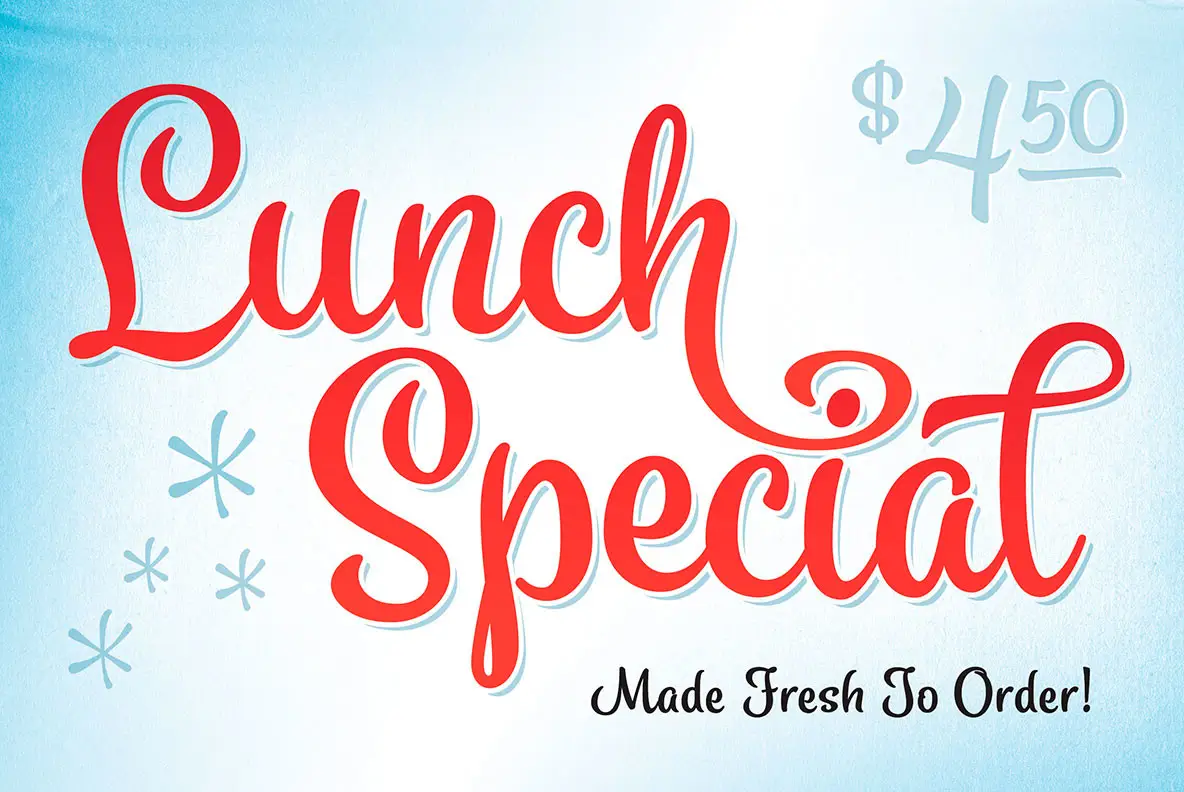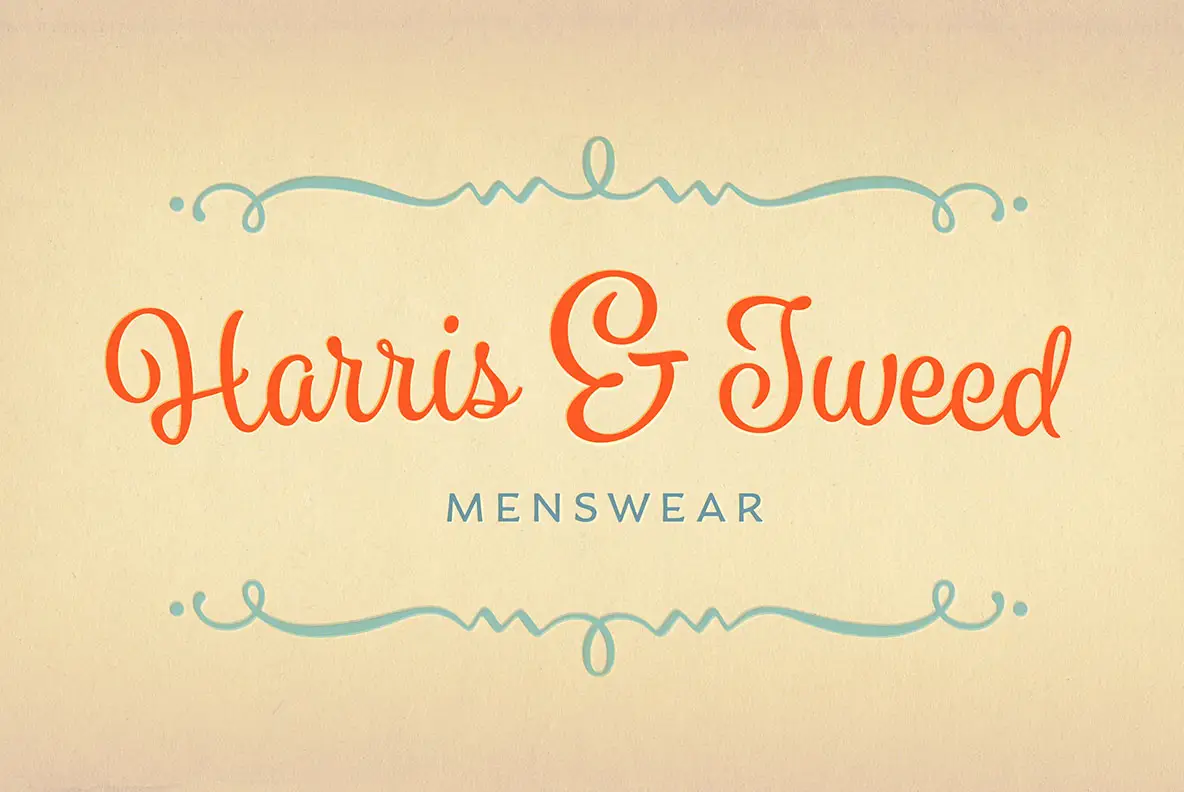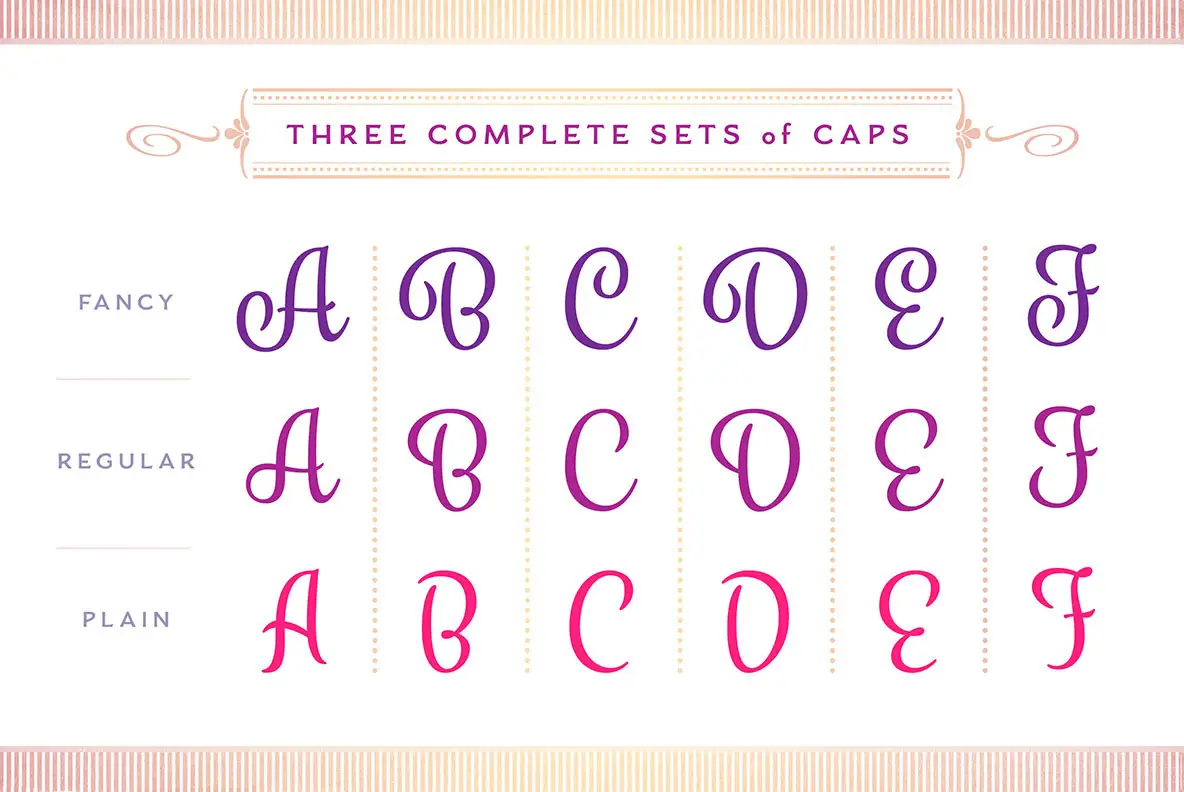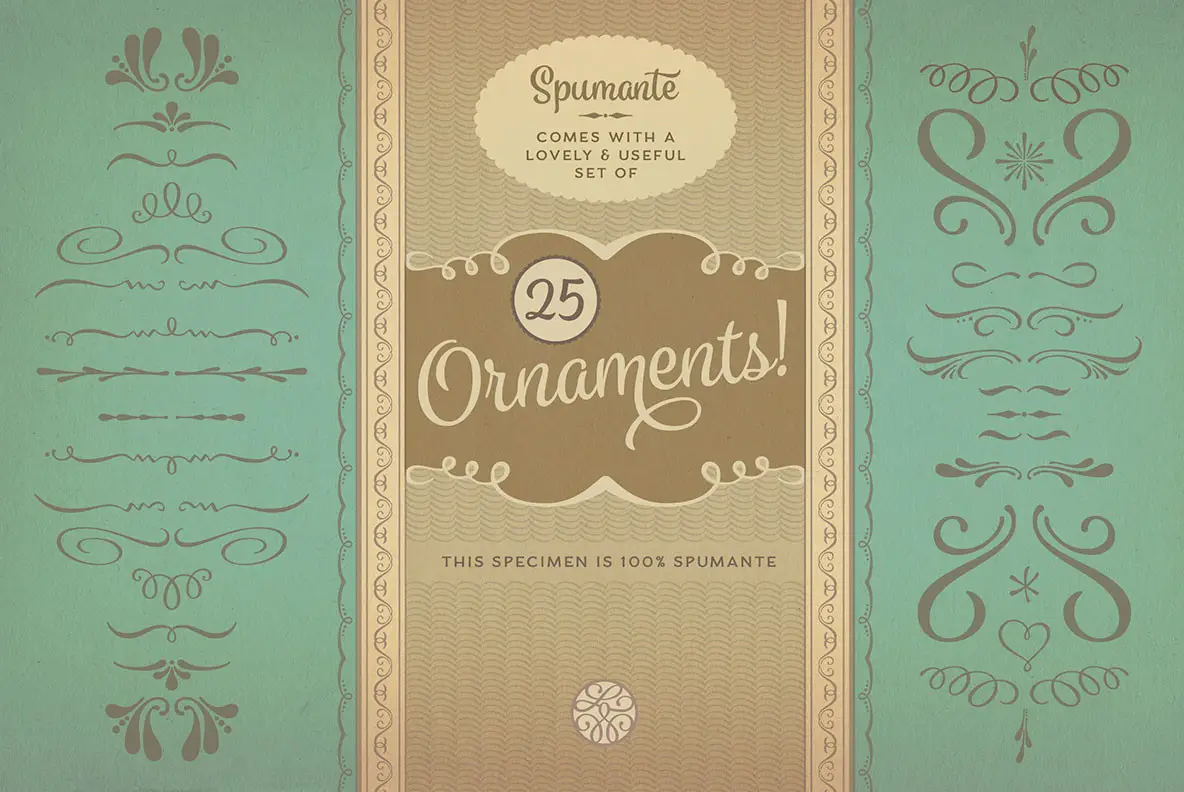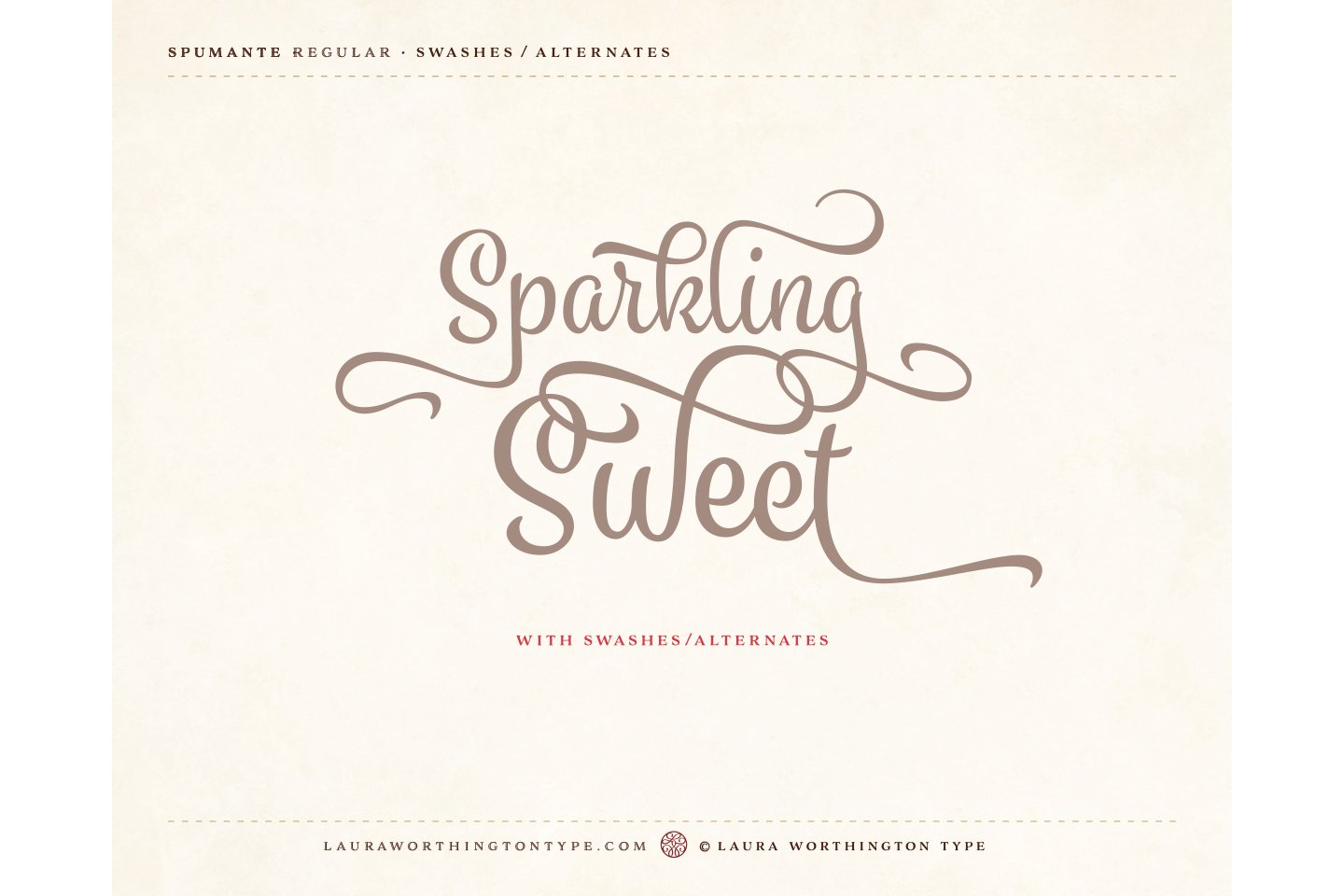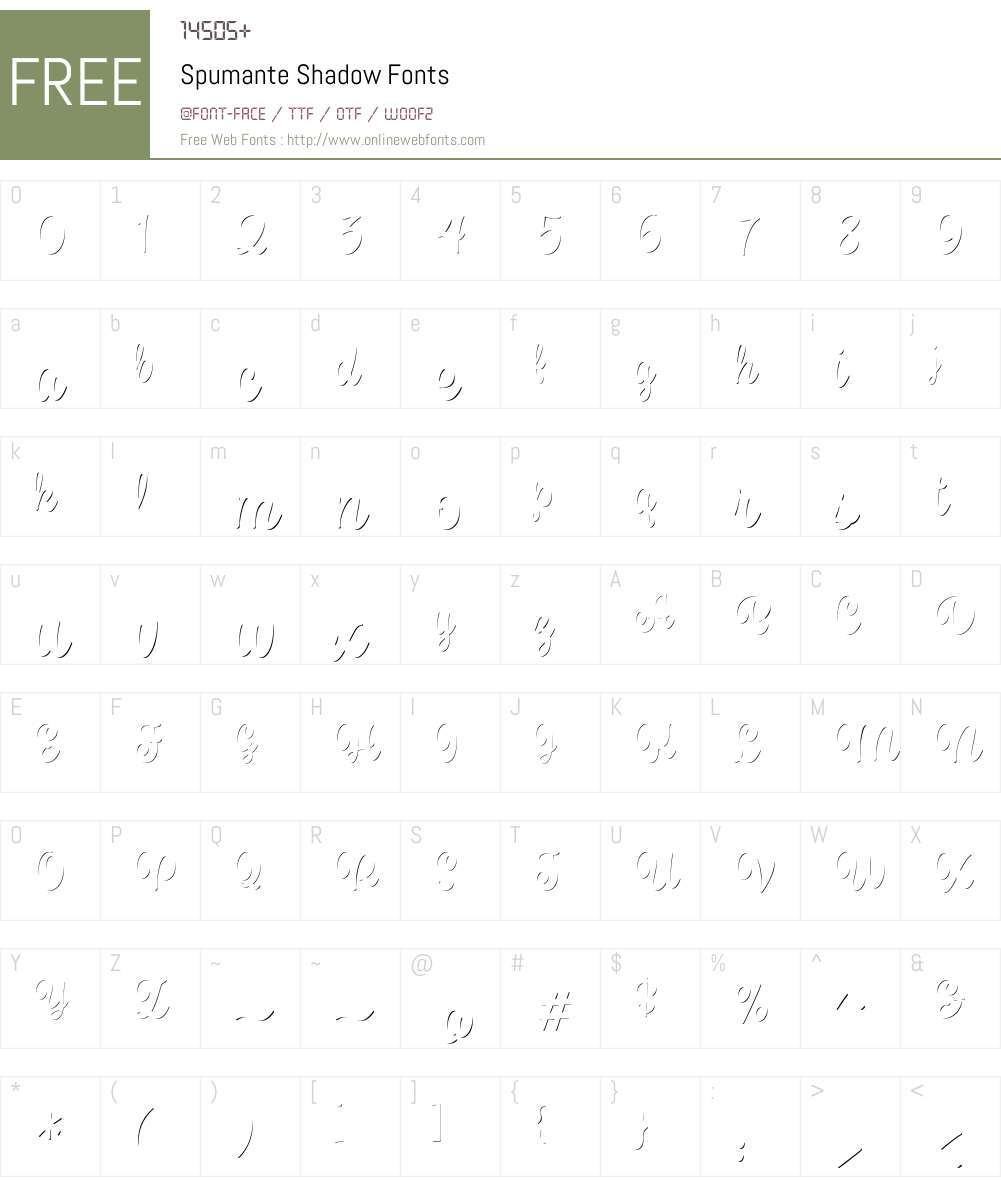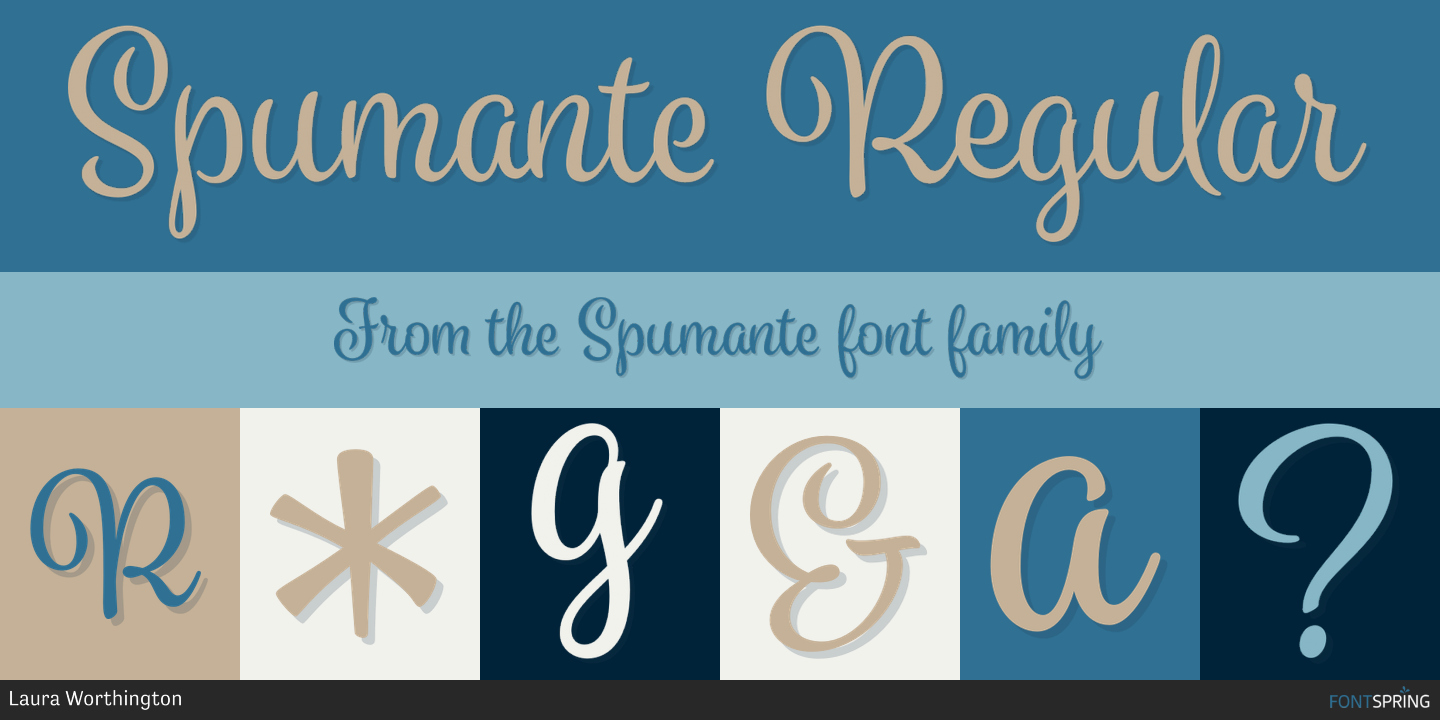
Spumante Basic Font Free . Web spumantebasic version 1.000 font (font family name: A typeface with 4 styles, available from adobe fonts for.
A great choice for highlighting your design elements. Regular), 360 characters in total. Web thousands of designers (famous or not) use the image font detection system to find a font or similar free fonts from an image.
Web spumantebasic version 1.000 font (font family name: A typeface with 4 styles, available from adobe fonts for. Web spumantebasic version 1.000 font (font family name: Regular), 360 characters in total.
Spumante Basic Font Free - Web spumantebasic version 1.000 font (font family name: Web thousands of designers (famous or not) use the image font detection system to find a font or similar free fonts from an image. Web spumante is a brush script font family with four styles and over 200 swashes,. Ttf web svg eot woff woff2 otf pfa bin pt3 ps cff t42.
Spumante Basic Font Free - Web spumante bold fonts free downloads. Web spumantebasic version 1.000 font (font family name: Web spumante is a brush script font family with four styles and over 200 swashes,. Web explore spumante designed by laura worthington at adobe fonts. Ttf web svg eot woff woff2 otf pfa bin pt3 ps cff t42 t11 dfont none.
Spumante Basic Font Free - Web spumantebasic version 1.000 font (font family name: A typeface with 4 styles, available from adobe fonts for. Web explore spumante designed by laura worthington at adobe fonts. Ttf web svg eot woff woff2 otf pfa bin pt3 ps cff t42 t11 dfont none. Web thousands of designers (famous or not) use the image font detection system to find a.
Spumante Basic Font Free - Ttf web svg eot woff woff2 otf pfa bin pt3 ps cff t42 t11 dfont none. A great choice for highlighting your design elements. Web spumante is a brush script font family with four styles and over 200 swashes,. Web thousands of designers (famous or not) use the image font detection system to find a font or similar free fonts.
Spumante Basic Font Free - Web thousands of designers (famous or not) use the image font detection system to find a font or similar free fonts from an image. See how to download spumante. A typeface with 4 styles, available from adobe fonts for. Regular), 360 characters in total. Ttf web svg eot woff woff2 otf pfa bin pt3 ps cff t42 t11 dfont none.
Spumante Basic Font Free - Web spumante is a brush script font family with four styles and over 200 swashes,. See how to download spumante. A typeface with 4 styles, available from adobe fonts for. Web spumante bold fonts free downloads. Web spumantebasic version 1.000 font (font family name:
Spumante Basic Font Free - Web spumante bold fonts free downloads. A typeface with 4 styles, available from adobe fonts for. Web spumante is a brush script font family with four styles and over 200 swashes,. A great choice for highlighting your design elements. Web spumante font free download.
Spumante Basic Font Free - Regular), 360 characters in total. A great choice for highlighting your design elements. Web spumante is a brush script font family with four styles and over 200 swashes,. Web spumante font free download. Ttf web svg eot woff woff2 otf pfa bin pt3 ps cff t42 t11 dfont none.
Spumante Basic Font Free - Regular), 360 characters in total. A typeface with 4 styles, available from adobe fonts for. Web spumantebasic version 1.000 font (font family name: Web thousands of designers (famous or not) use the image font detection system to find a font or similar free fonts from an image. A great choice for highlighting your design elements.
Spumante Basic Font Free - See how to download spumante. Web spumante bold fonts free downloads. A great choice for highlighting your design elements. Regular), 360 characters in total. Web spumante is a brush script font family with four styles and over 200 swashes,.
Spumante Basic Font Free - Ttf web svg eot woff woff2 otf pfa bin pt3 ps cff t42 t11 dfont none. See how to download spumante. Web spumante font free download. A great choice for highlighting your design elements. A typeface with 4 styles, available from adobe fonts for.
Spumante Basic Font Free - Web spumante is a brush script font family with four styles and over 200 swashes,. Web spumante font free download. Web spumante bold fonts free downloads. Web spumantebasic version 1.000 font (font family name: Regular), 360 characters in total.
Spumante Basic Font Free - Web spumante bold fonts free downloads. Ttf web svg eot woff woff2 otf pfa bin pt3 ps cff t42 t11 dfont none. See how to download spumante. A typeface with 4 styles, available from adobe fonts for. Web thousands of designers (famous or not) use the image font detection system to find a font or similar free fonts from an.
Spumante Basic Font Free - A great choice for highlighting your design elements. Web explore spumante designed by laura worthington at adobe fonts. Web spumantebasic version 1.000 font (font family name: Regular), 360 characters in total. Web spumante is a brush script font family with four styles and over 200 swashes,.